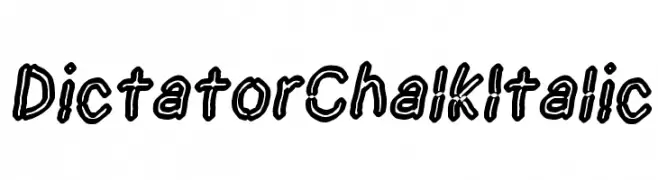
A bold, chalk-like font with a playful, hand-drawn style.
A bold, hand-drawn font with a playful, irregular style.
A playful, hand-drawn chalk-style font with bold, outlined characters.
A playful, bold outline font with rounded characters and consistent thickness.